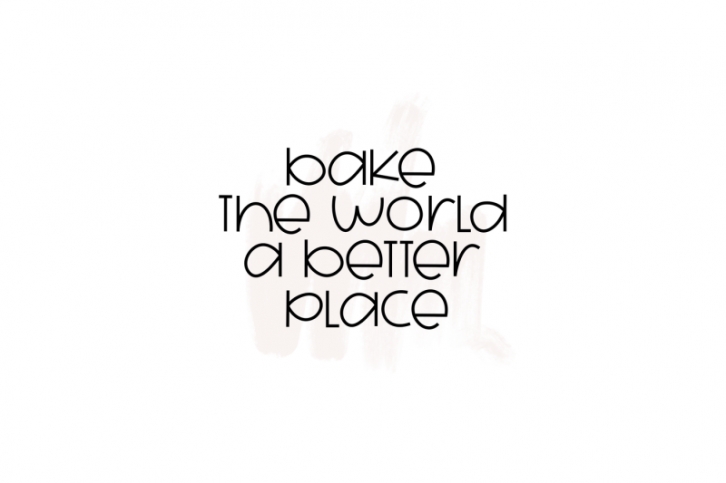
Snickerdoodle is a cute handwritten font.
It is perfect for small print, branding, logos, posters, and more!
This font does include accent characters.